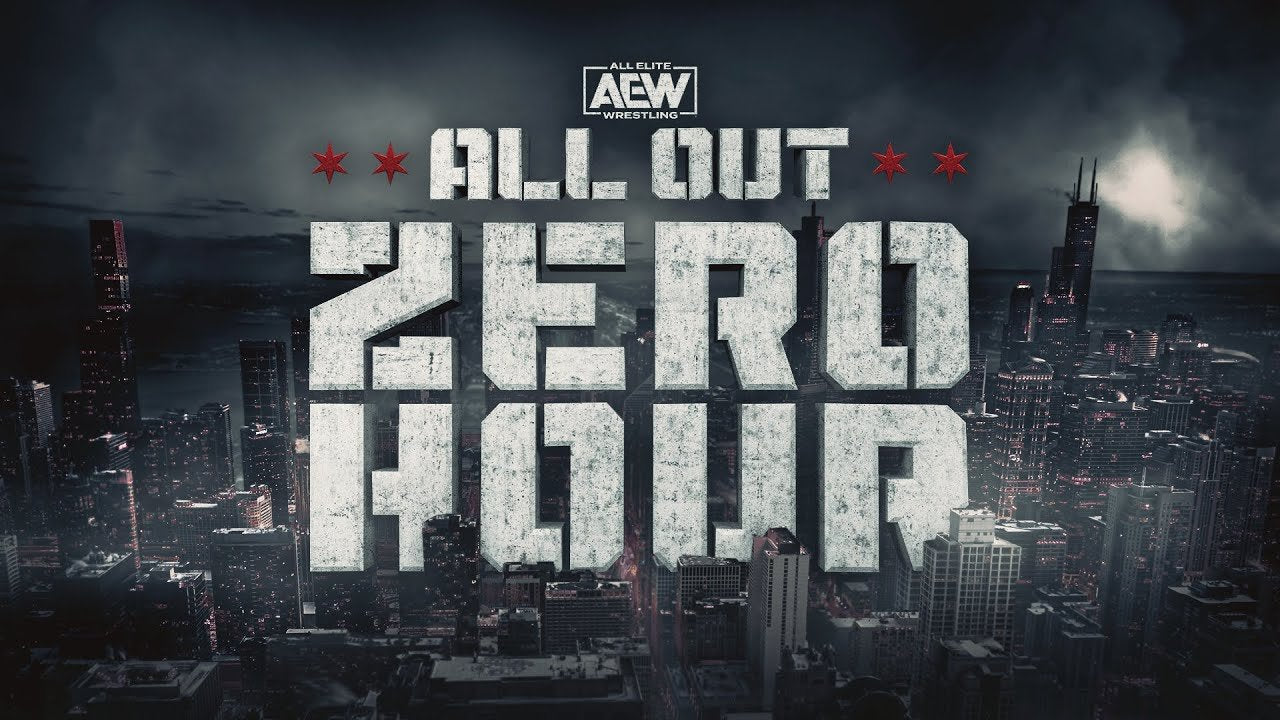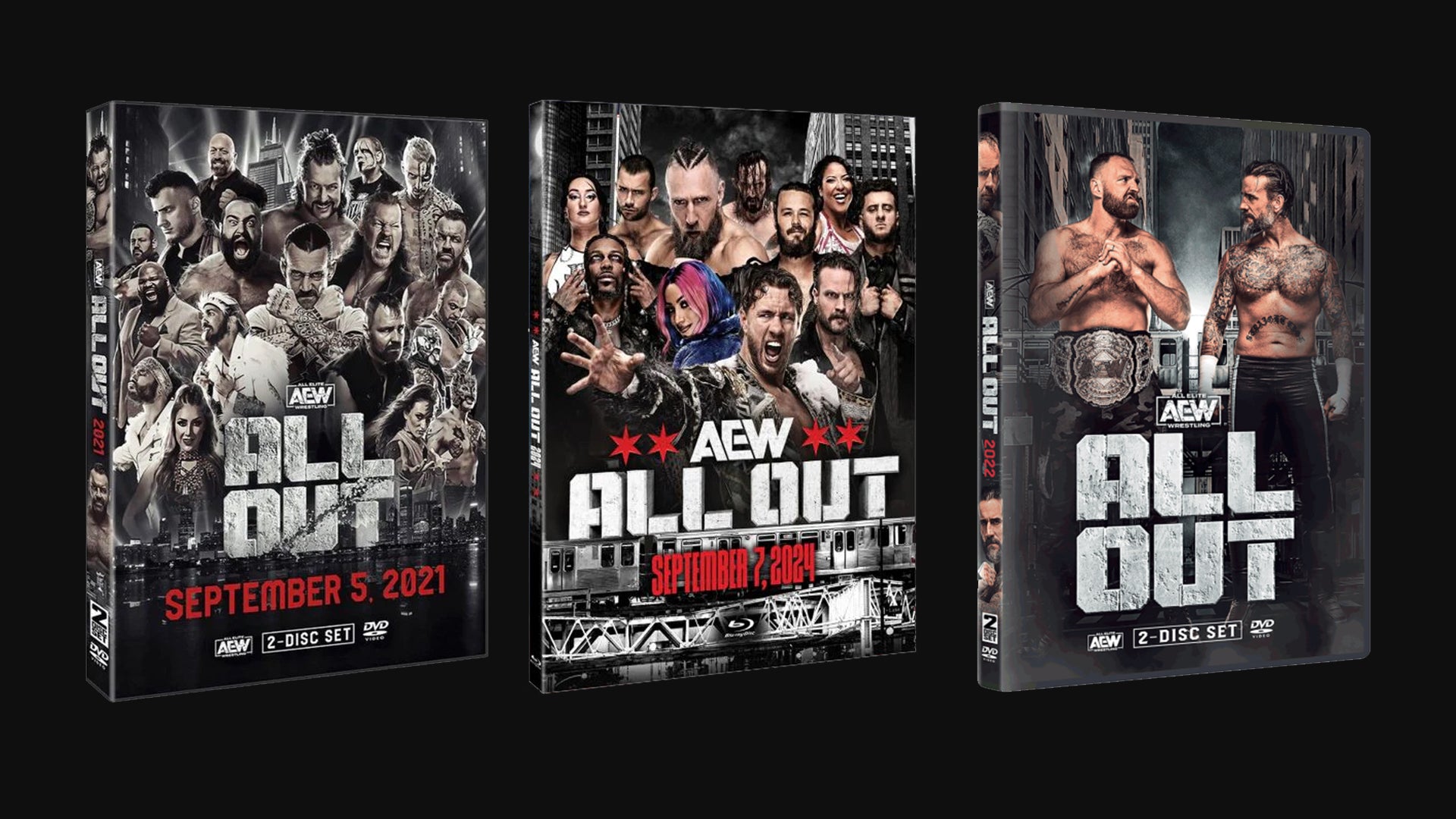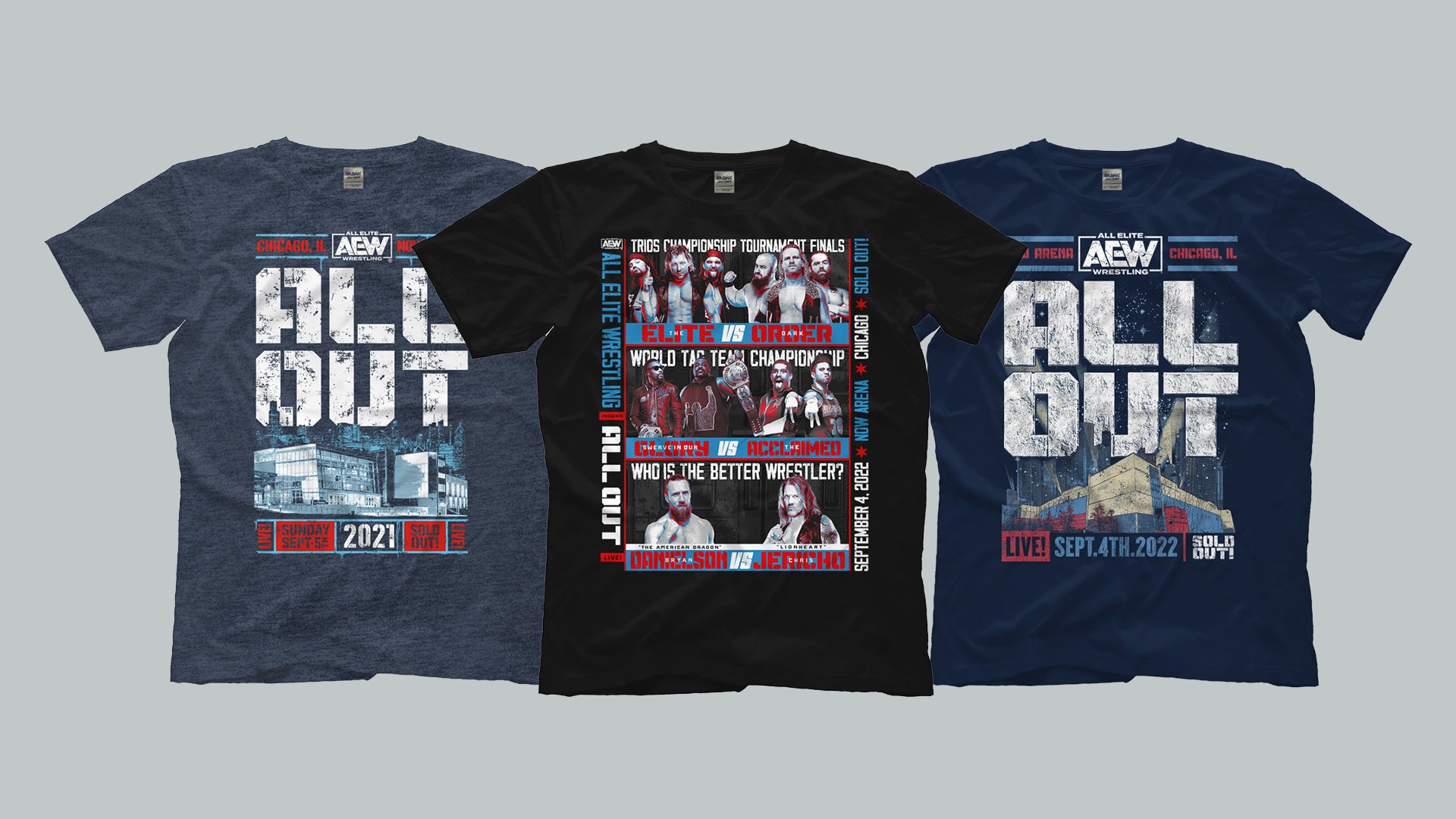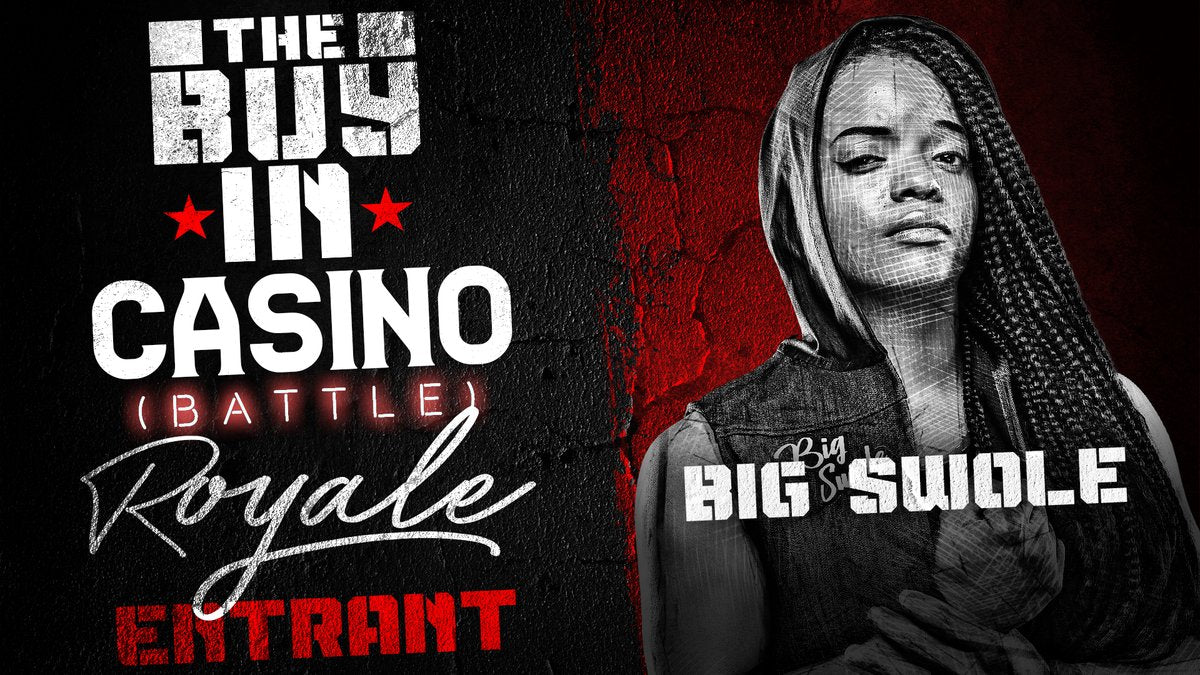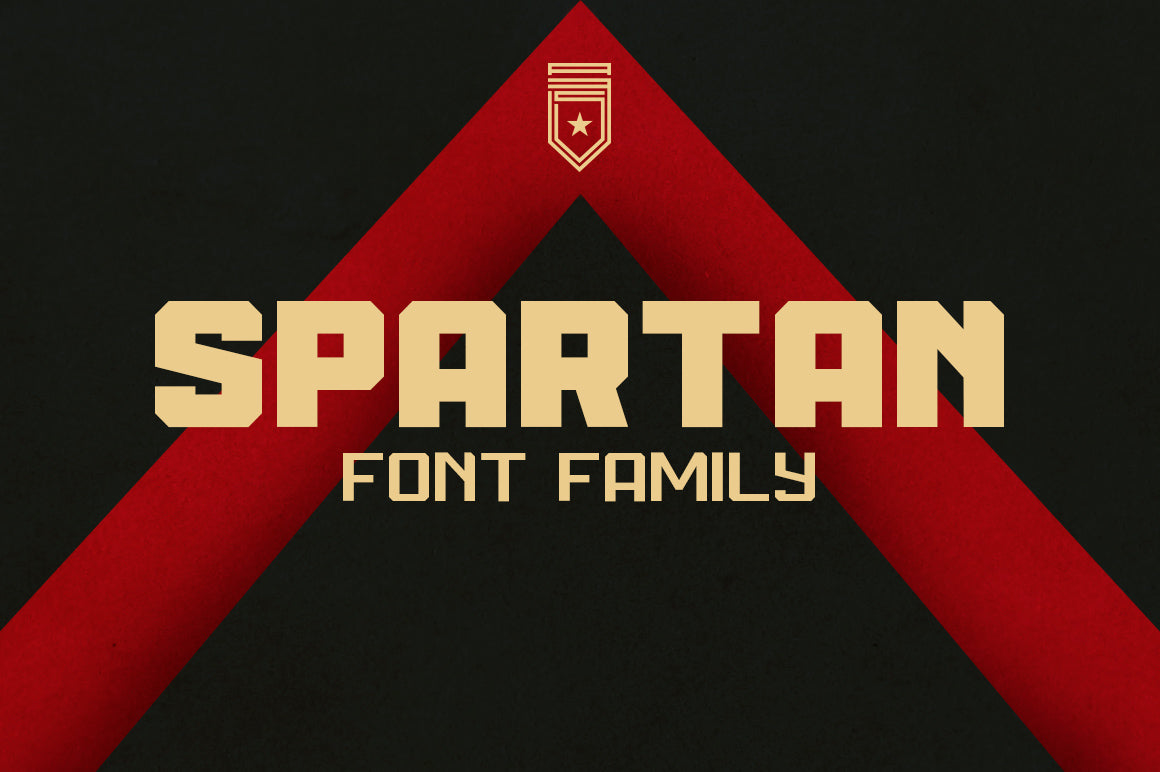
Fonts In Use: Spartan Goes All Out for the AEW
When I first released Spartan in 2018, my goal was simple: build a font that embodied toughness and strength. Like most of my typefaces, it didn’t gain traction overnight. Fonts usually take time to “warm up,” find their audience, and eventually start selling. Spartan was no exception.
But as the months rolled by, sales picked up—and before long, Spartan started proving itself as one of my top-performing fonts. That kind of validation is always rewarding for a designer.
One of my favorite parts of being a type designer is seeing where my fonts end up. I always encourage people to tag me in their projects, but I’ll admit—I do a little searching on my own too.
Somewhere between 2020-22, while working at my full-time job, I was browsing Behance for inspiration for a campaign called All In. That’s when I stumbled across something that made me do a double take: a project for AEW’s “All Out” pay-per-view event.
And there it was, Spartan, but with a bold twist. The designers had layered on effects and treatments that gave it an entirely new energy. I absolutely loved it.
What started as a quick inspiration hunt quickly turned into me going down a rabbit hole. I googled AEW All Out and started saving images of all the posters, promos, and graphics I could find. Seeing Spartan used on such a massive stage; merch, promotional campaigns, social media, and even national TV and PPV...was surreal.
As a designer, that moment was one of those “wow” reminders of how far your work can travel once it’s released into the world. You really never know.
Spartan began as just another font in my collection, but it found its way into an arena I never could have imagined. That’s the beauty of design: once your work is out there, it takes on a life of its own.
So keep creating, keep sharing, and trust that your work might just show up in unexpected—and unforgettable—places.